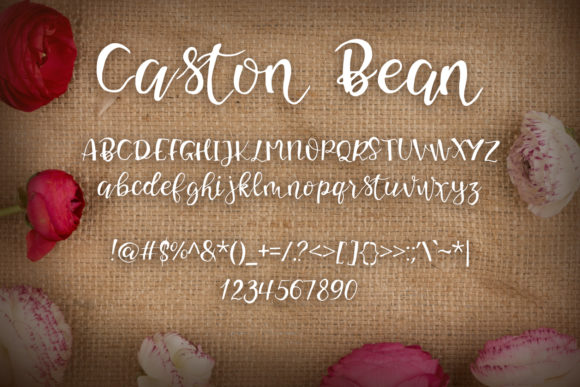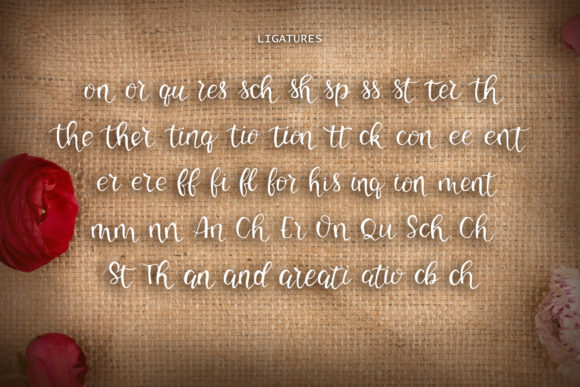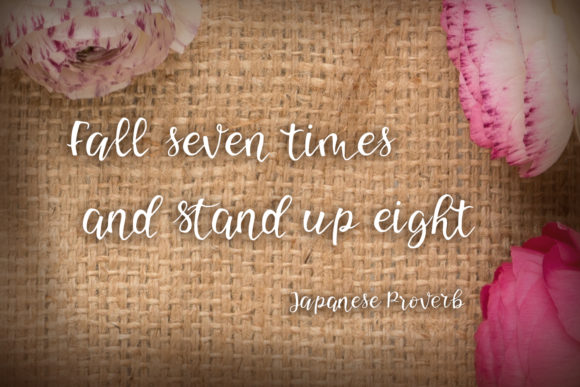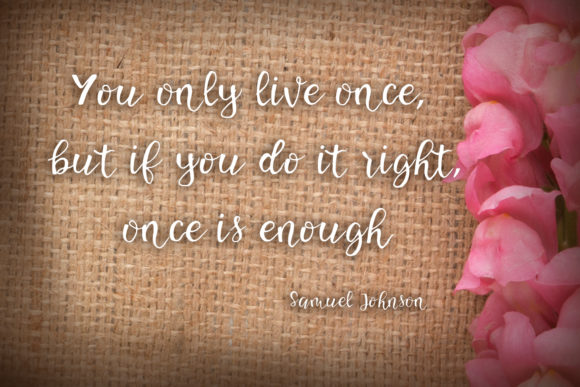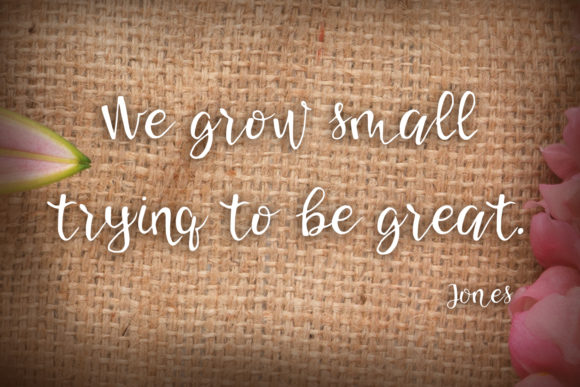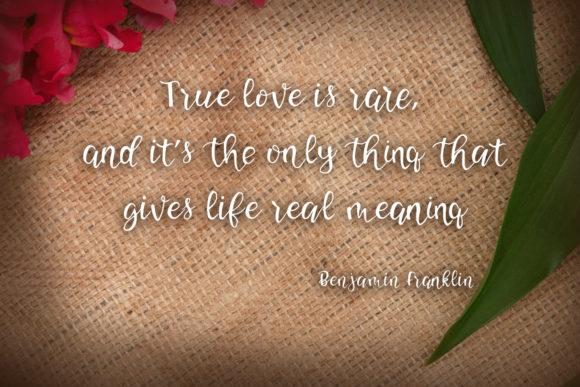
Discover the Timeless Elegance of the Caston Bean Font
There’s something magical about sitting at your desk, surrounded by blank sheets of paper and a multitude of design tools, waiting for that spark of creativity to strike. You gaze out the window, letting your mind wander, and suddenly, a vision appears – a beautiful, handwritten font that perfectly captures the essence of your latest design project. For many designers, this moment is a thrilling one, and it’s exactly what happens when you fall in love with the Caston Bean Font.
This delicate and elegant handwritten font is a masterpiece of design, with distinct and well-rounded letters that will elevate any project to new heights. Whether you’re creating a wedding invitation, a branding logo, or a promotional poster, the Caston Bean Font is the perfect choice for designers who value style and sophistication. Its versatility makes it a valuable addition to any design arsenal, and its timeless elegance ensures that your creations will stand the test of time.
Caston Bean Font Key Features
- Unique Characteristics: The Caston Bean Font features a unique, handwritten style with subtle imperfections, giving it a personal and creative touch.
Designer Review: Caston Bean Font
I recently had the chance to work with the Caston Bean Font, and I’m excited to share my honest thoughts.
Unique and playful feel: The Caston Bean Font has a distinctive, whimsical look that adds a touch of personality to any design.
Wide range of languages supported: The font includes a wide range of languages, making it a great option for international designs.
High-quality vector graphics: The font’s vector graphics are crisp and clean, making it perfect for large-scale designs or high-resolution printing.
Some character limitations: While the font has a wide range of languages, it’s not perfect, and some characters may not display correctly.
Not ideal for body text: The font’s unique look makes it more suited for headlines or titles rather than body text, where readability is key.
May not be suitable for all designs: The font’s playful feel may not be suitable for all designs, such as corporate or formal projects.
The Caston Bean Font is a fun and creative option that’s perfect for adding a touch of personality to designs. While it has some limitations, it’s a great choice for projects where a unique look is desired. I’d recommend it for headlines, titles, and other design elements where a playful feel is desired.
Tips for Getting the Most Out of Caston Bean Font
Caston Bean Font is a versatile and elegant font that can be used in a variety of contexts, from wedding invitations to business presentations. Here are some tips for getting the most out of it:
- Use it for headings and titles to add a touch of sophistication.
- Pair it with bold fonts for a striking contrast.